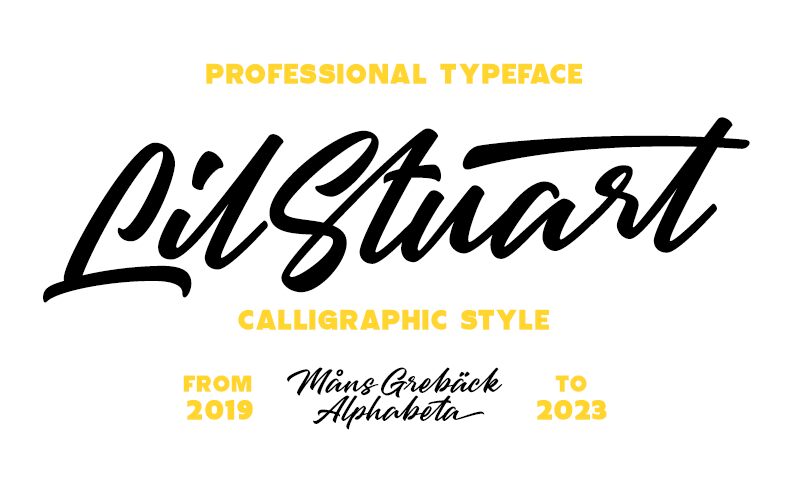
Lil Stuart, designed by Mans Greback, is a captivating calligraphy font that effortlessly blends elegance and playfulness. With its semi-light weight, this font exudes a delicate charm while maintaining legibility. Its graceful strokes and intricate details make it perfect for wedding invitations, feminine branding projects, or romantic quotes. Whether you're designing a logo for a high-end beauty salon or crafting personalized stationery for an exclusive event, Lil Stuart's calligraphic style will add a touch of sophistication and uniqueness to your projects. Elevate your designs with the enchanting allure of Lil Stuart.
Lil Stuart is a beautiful calligraphic script typeface.
This logotype lettering has an optimistic look, expressive speed and characteristic movements.
Use underscore _ anywhere in a word to make an underline.
Example: Love_letter
Use multiple underscores to make different swashes.
Example: Base_____ball
Use numbersign # after any letter to make a swash.
Example: Welcome# Summer#